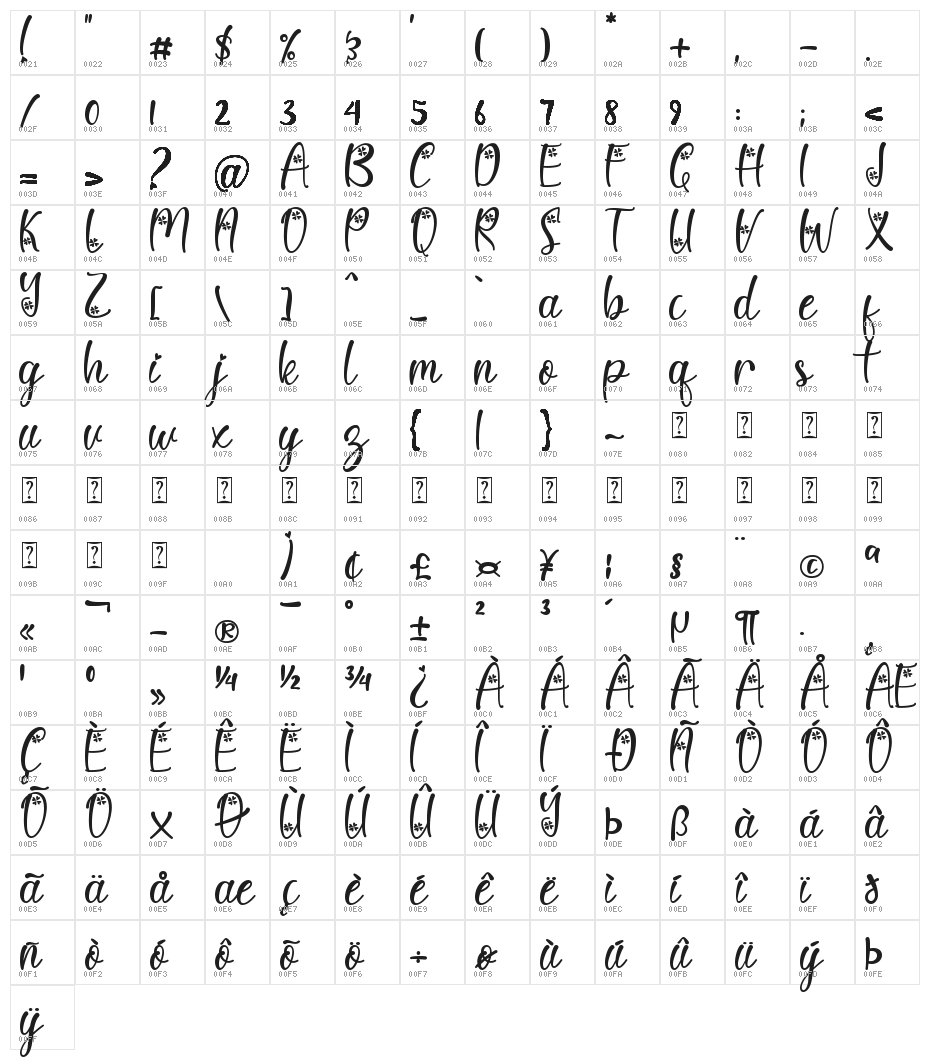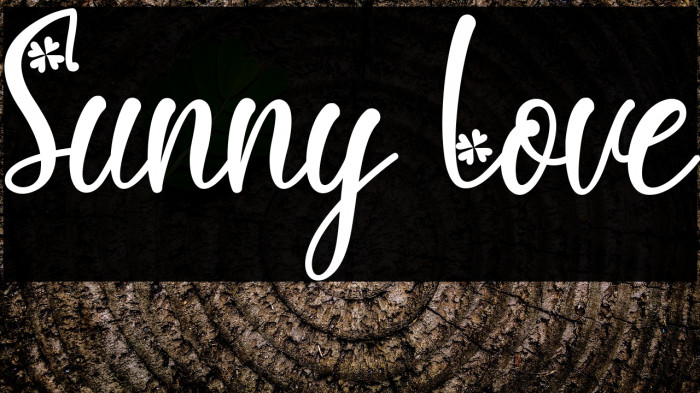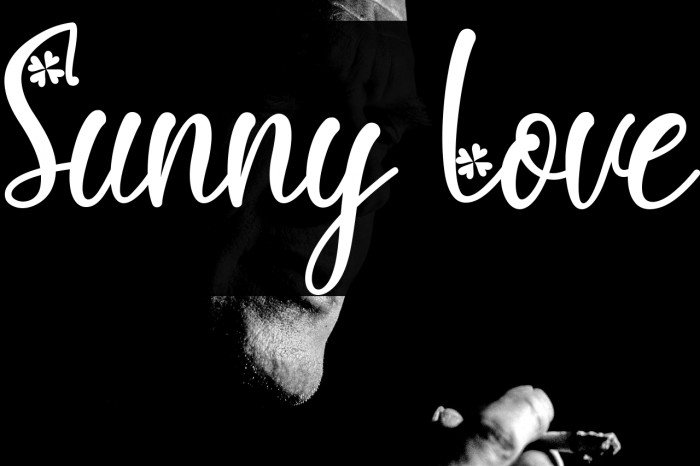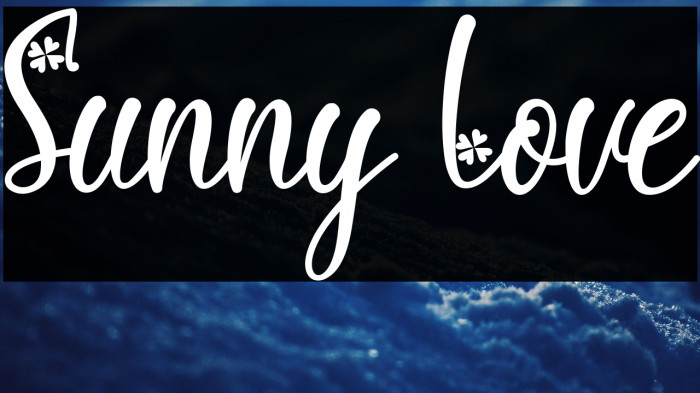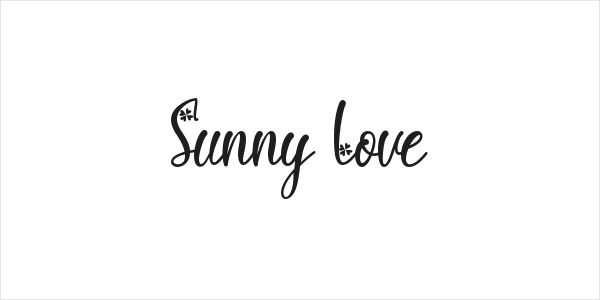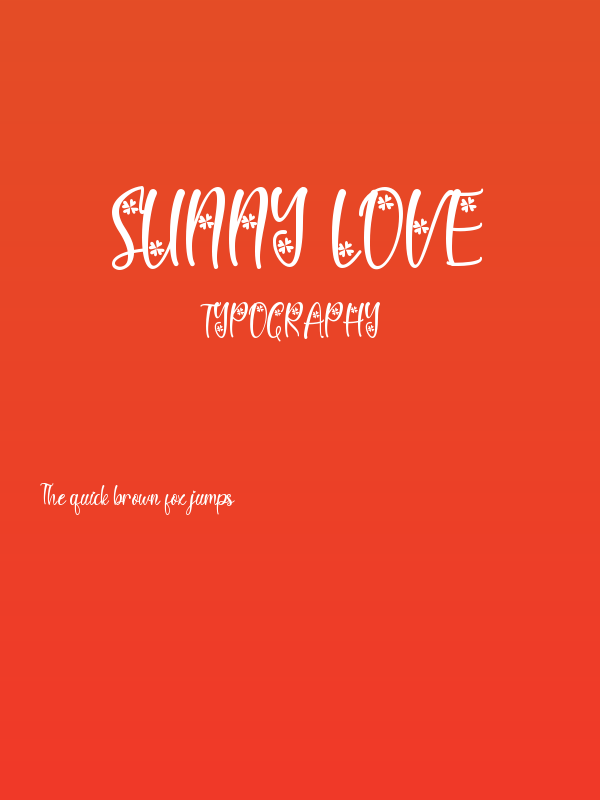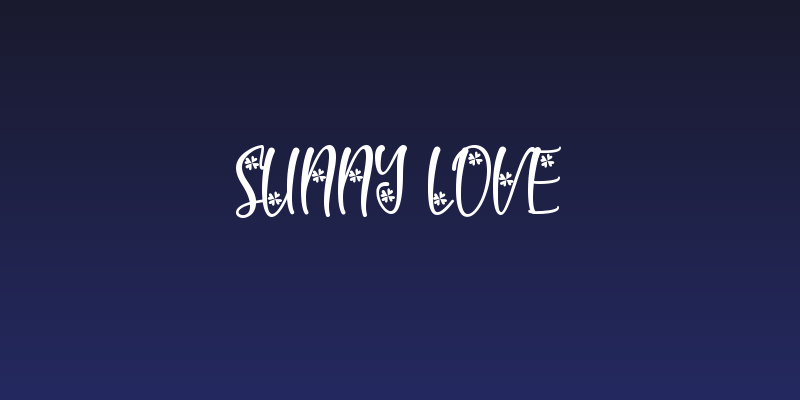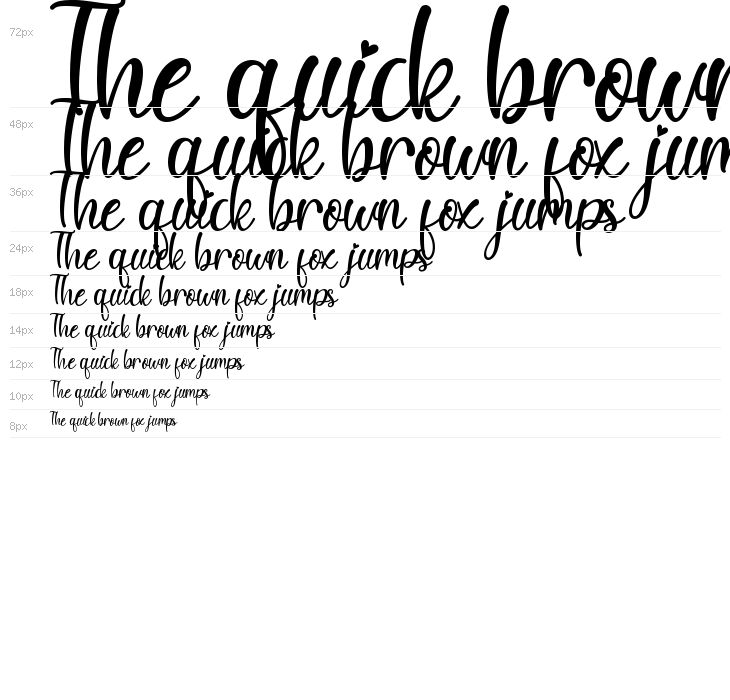
Sunny Love Font
Sunny Love Description
This font features a playful and whimsical style, characterized by its handwritten script appearance. Each letter is adorned with small decorative elements, such as floral motifs, adding a unique and charming touch. The strokes are fluid and dynamic, with a consistent thickness that gives the font a bold presence. The uppercase letters are particularly ornate, while the lowercase letters maintain a more subtle elegance. The numbers and special characters follow the same decorative theme, ensuring a cohesive look across all elements.
| Proposed Projects | Ideal for greeting cards, wedding invitations, playful branding, and decorative posters. |